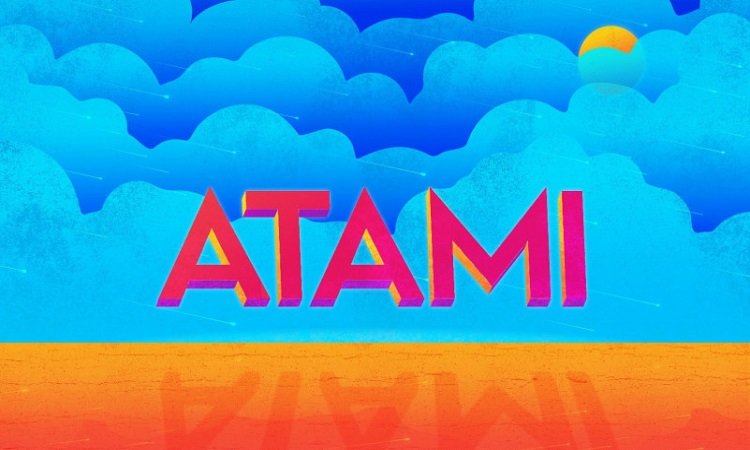
Atami Sans Serif Font
Atami Sans Serif Font is suitable for creating logos, wordmarks, titles, taglines. The properties of uppercase letters, numbers, punctuation and extra characters in Atami are the same as those of lowercase letters, which allows to combine letters of both cases in different ways. All characters in Atami have normal ratios, so it can be used as typesetting font.